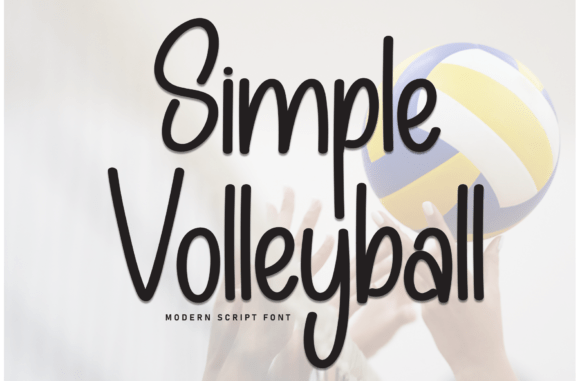
Simple Volleyball: A Fresh Script for Creative Projects
First Impressions and Visual Personality
When I first laid eyes on Simple Volleyball, it immediately struck me as a font with a casual, yet elegant vibe. The letters flow smoothly, creating a sense of movement and energy that feels both relaxed and refined. This typeface has a distinct personality that leans towards the playful and approachable, making it a great choice for projects that need to convey a friendly and inviting tone.
A Versatile Font for Diverse Design Needs
Simple Volleyball is a versatile script that can be used in a variety of design contexts. For logo design and brand identity, it adds a touch of uniqueness and character. In packaging design and product labels, it can make your product stand out with its distinctive style. Whether you're working on posters, flyers, or invitations, this font can add a creative and personal touch.
Performance in Real-Life Work Situations
In website headers and blog graphics, Simple Volleyball can create a memorable and engaging visual experience. It's also well-suited for social media graphics and digital ads, where it can grab attention and enhance the overall aesthetic. For printable products and Cricut projects, it offers a clean and legible option that works well in both digital and physical formats.
Where to Use Simple Volleyball Carefully
While Simple Volleyball is a fantastic choice for many projects, it should be used carefully in certain situations. It performs best in large headlines, short phrases, and brand marks. For longer text, it may not be the most readable option, so it's best to use it sparingly and as a decorative accent. It's also ideal for premium packaging, social posts, and as supporting text when paired with a more legible typeface.
Readability and Hierarchy
One of the key considerations for any font is readability. Simple Volleyball is generally readable, especially in larger sizes. However, for smaller text, it may become less legible. To ensure clarity, test it in black and white and check its performance at different sizes. When it comes to hierarchy, Simple Volleyball can be used effectively to create a focal point, but it's important to balance it with more straightforward fonts to maintain a clear visual structure.
Brand Consistency and Audience Trust
Maintaining brand consistency is crucial, and Simple Volleyball can help achieve this by adding a consistent and recognizable element to your designs. Its unique style can build audience trust and recognition over time. Just be sure to use it consistently across all your materials to reinforce your brand's visual identity.
Practical Designer Notes
- Test in Black and White: Check how Simple Volleyball looks without color to ensure it holds up in various contexts.
- Check Small-Size Readability: Make sure it remains legible at smaller sizes, especially for product labels and editorial design.
- Try on Real Mockups: See how it looks in actual design scenarios to get a better feel for its practicality.
- Compare Uppercase and Lowercase: Understand how the different cases work together and choose the best option for your project.
- Review Spacing: Adjust kerning and tracking as needed to ensure optimal readability and aesthetics.
- Test Beside Other Fonts: Experiment with serif, sans serif, script, handwritten, and display fonts to find the best pairing.
Final Thoughts on Simple Volleyball
Simple Volleyball is a premium font that brings a fresh and dynamic element to your design projects. With its unique and versatile style, it can be a valuable addition to your design assets. Just remember to use it thoughtfully and test it thoroughly to ensure it meets your project's needs. Happy designing!